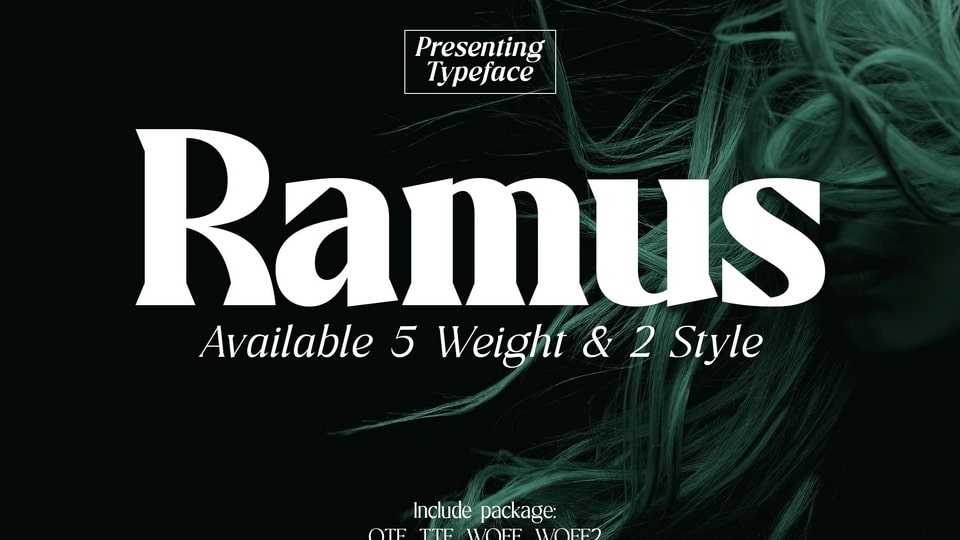
Download Ramus font, a serif typeface that provides a wide range of options for any design project. Ramus is the result of exploring minimalist design trends and classic typography.
Designer: SIGN Studio